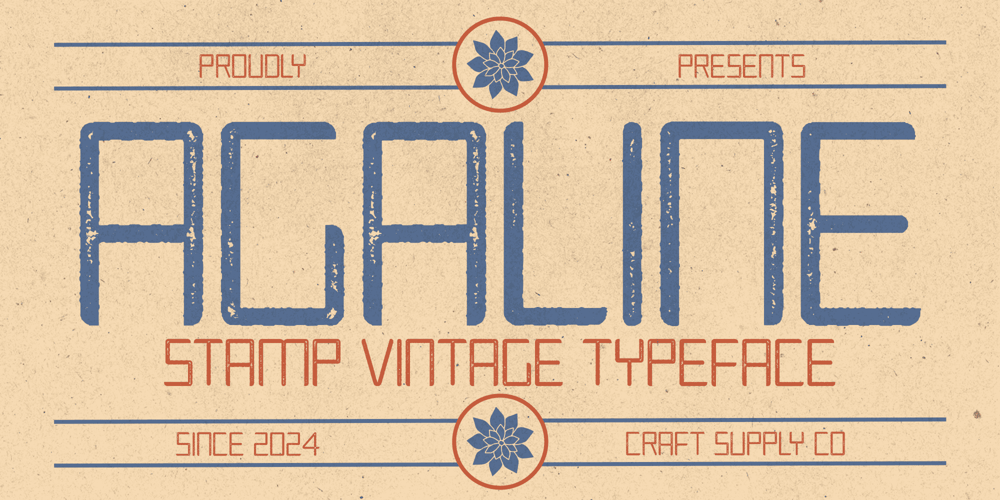
Agaline Stamp Font Family was designed by Trio Nazzar Saputra, Wahyu Hadi Yuana and published by Craft Supply Co. Agaline Stamp contains 2 styles and family package options. Agaline Stamp: Vintage Sci-Fi InspirationGeometric Sci-Fi AestheticsAgaline Stamp presents a striking display font characterized by geometric shapes inspired by sci-fi themes. Its futuristic design adds a touch of modernity to any project.Vintage Stamp EffectWith its unique stamp effect, This font exudes a vintage vibe reminiscent of old-school sci-fi aesthetics. Each letter appears as if stamped onto the canvas, lending a sense of authenticity and nostalgia.Eye-Catching Display FontCrafted for eye-catching displays, This font commands attention with its bold geometric forms and retro stamping effect. Whether used in posters, headlines, or digital interfaces, it captivates viewers instantly.Versatile Design ApplicationsDespite its vintage appeal, This font offers versatility in design applications. From sci-fi-themed branding to retro-inspired editorial layouts, it adds character and intrigue to various design projects.Fusion of Sci-Fi and Vintage CharmThis font merges futuristic sci-fi elements with vintage stamp aesthetics, resulting in a captivating display font suitable for a wide range of design applications. Embrace its unique blend of styles and transport your audience to an otherworldly dimension.